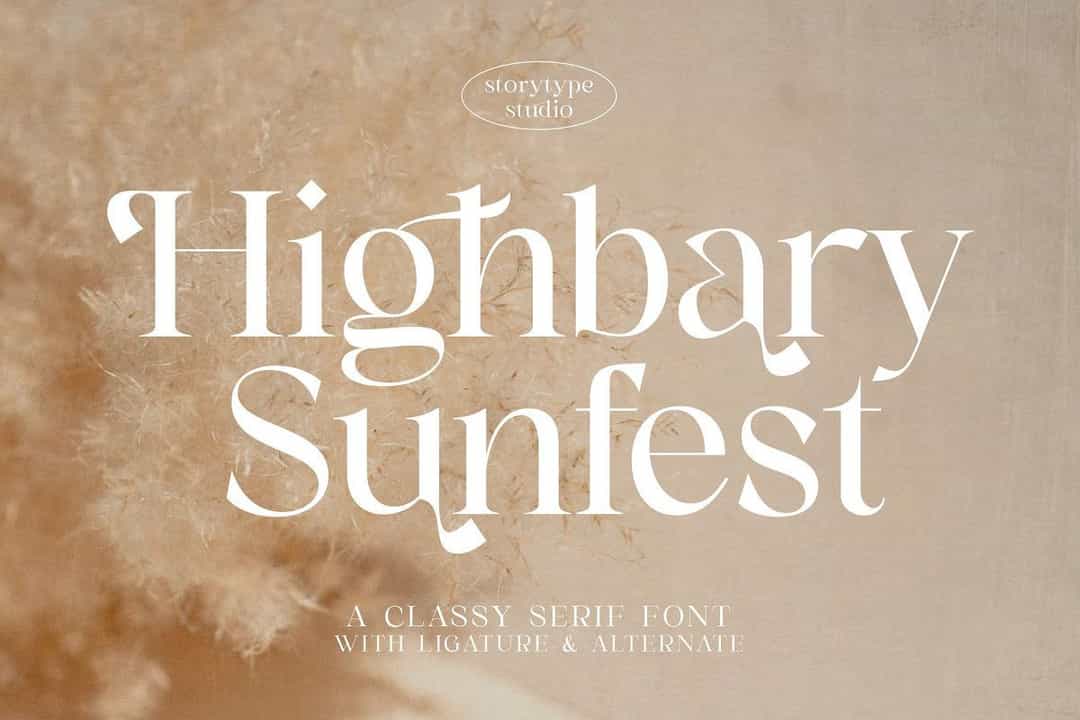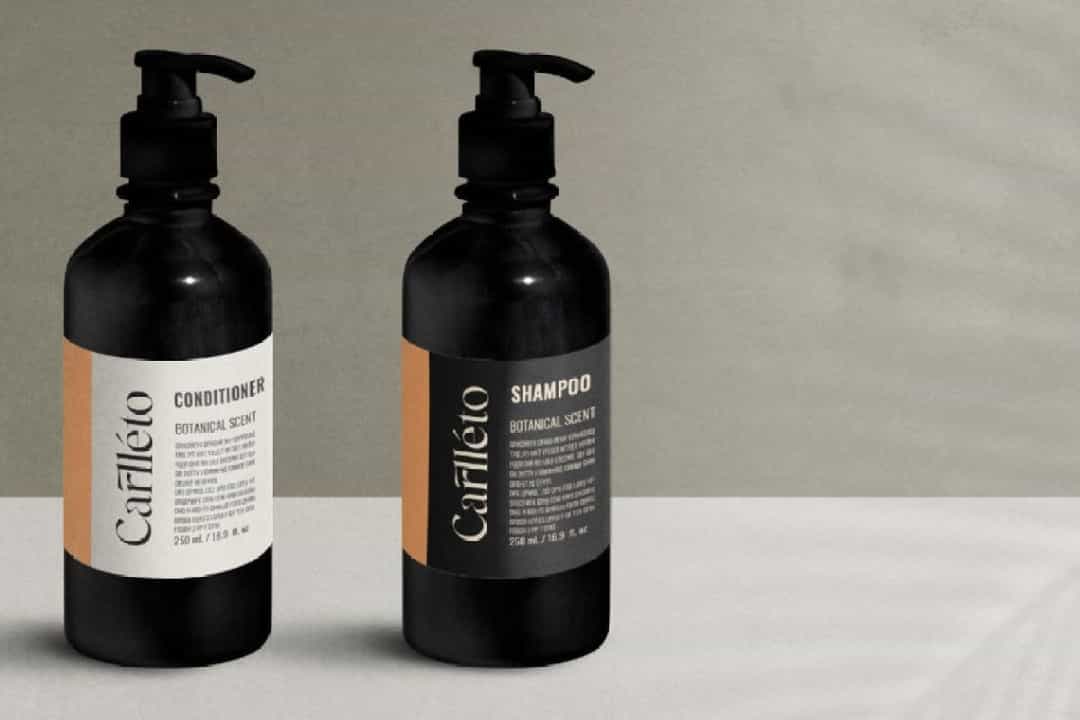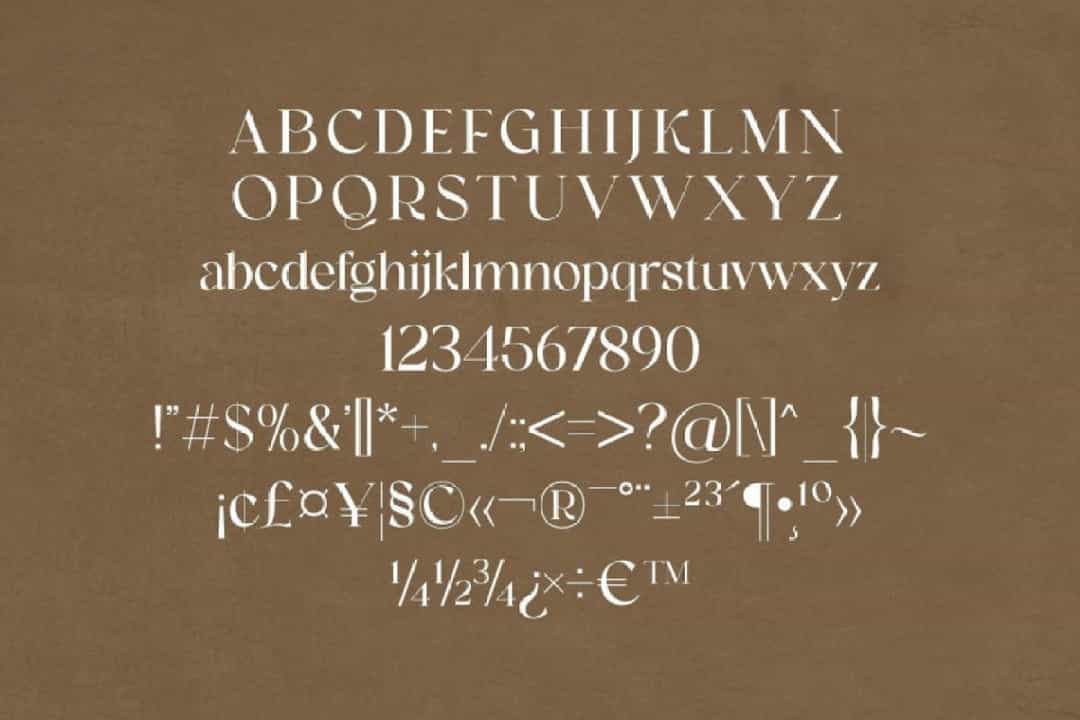
Highbary Sunfest is an iconic Serif typeface with a distinctive design and modern appearance, ideal for elegant and luxurious logos, movie/book titles magazines fashion labels clothing letters quotes etc.